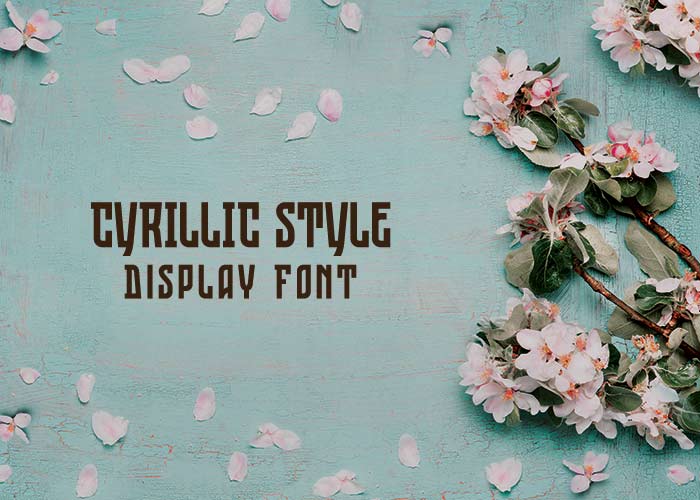
A free Cyrillic display font created to celebrate the 800th anniversary of Nizhny Novgorod — one of Russia’s oldest cities. Clean, condensed letterforms with a distinct ethnic character make this typeface instantly native for Cyrillic readers and strikingly expressive for Latin users.
Key Features
• Strong ethnic taste with straight, condensed letterforms
• 2 styles: Uppercase + Small Caps alternatives
• Perfectly recognizable and readable for Cyrillic users
• Modern display font with a bold typographic presence
Ideal Uses
• Titles and headlines
• Posters and editorial design
• Web and UI headings
• Branding and packaging
• Badges, illustrations, and other display typography